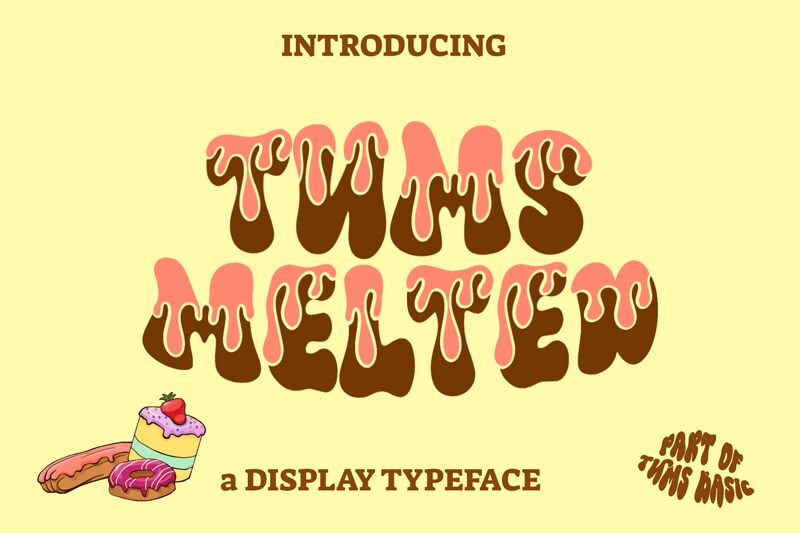
Tums Melted is a display font designed by dian haniff, perfect for a variety of creative projects seeking a fun and playful vibe. With its cartoon-style design and extra-bold weight, it's ideal for use in children's books, advertisements, logos, and more! Tums Melted will truly make your text pop on any platform. Whether you're designing a website or creating social media graphics, this font will add flair to any project. So why settle for ordinary when you can have extraordinary? Try Tums Melted today and watch your designs come to life!